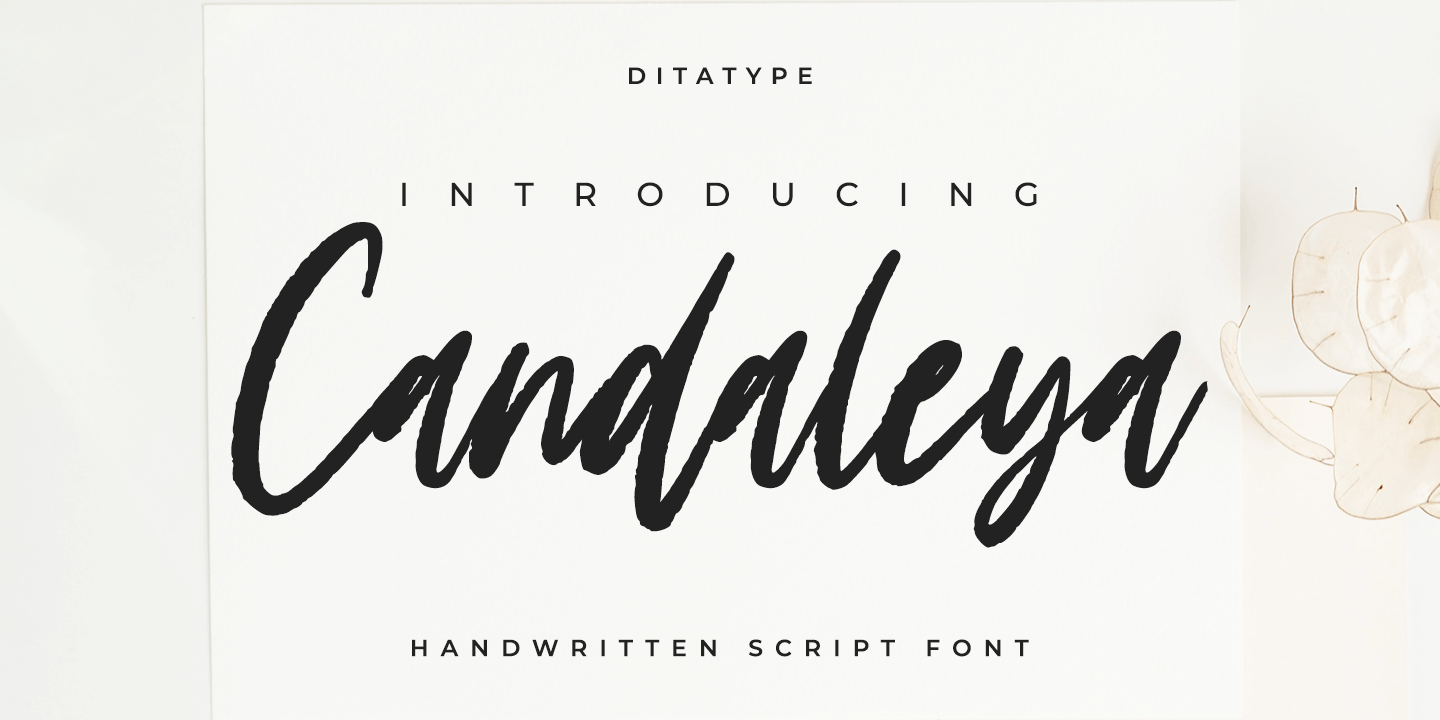
This enchanting script font is perfect for candle company branding, aromatherapy product packaging, spa wellness campaigns, meditation center signage, romantic lighting design, luxury home decor marketing, spiritual wellness materials, and luminous design projects that celebrate warmth and tranquil illumination.
Candaleya Font is exciting because it embodies flickering elegance with its flowing letterforms that dance like candlelight shadows against ancient walls. The font delivers warm sophistication while maintaining gentle readability that creates atmosphere and peaceful ambiance.
The Candaleya Font family includes regular and ornamental versions with flame-inspired decorative elements, candle symbols, and luminous ornaments, providing designers with comprehensive tools for creating glowing typography that illuminates with warmth.